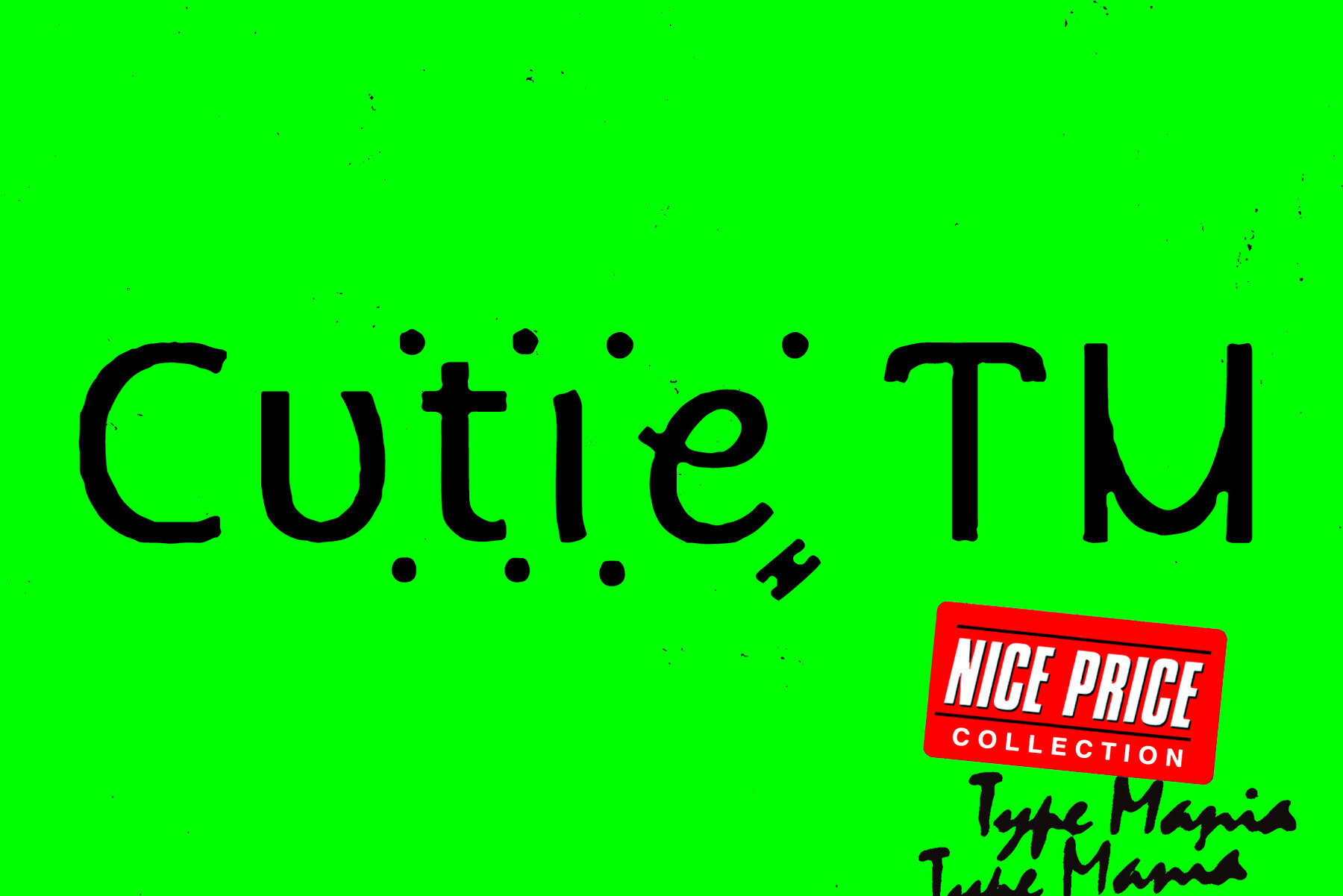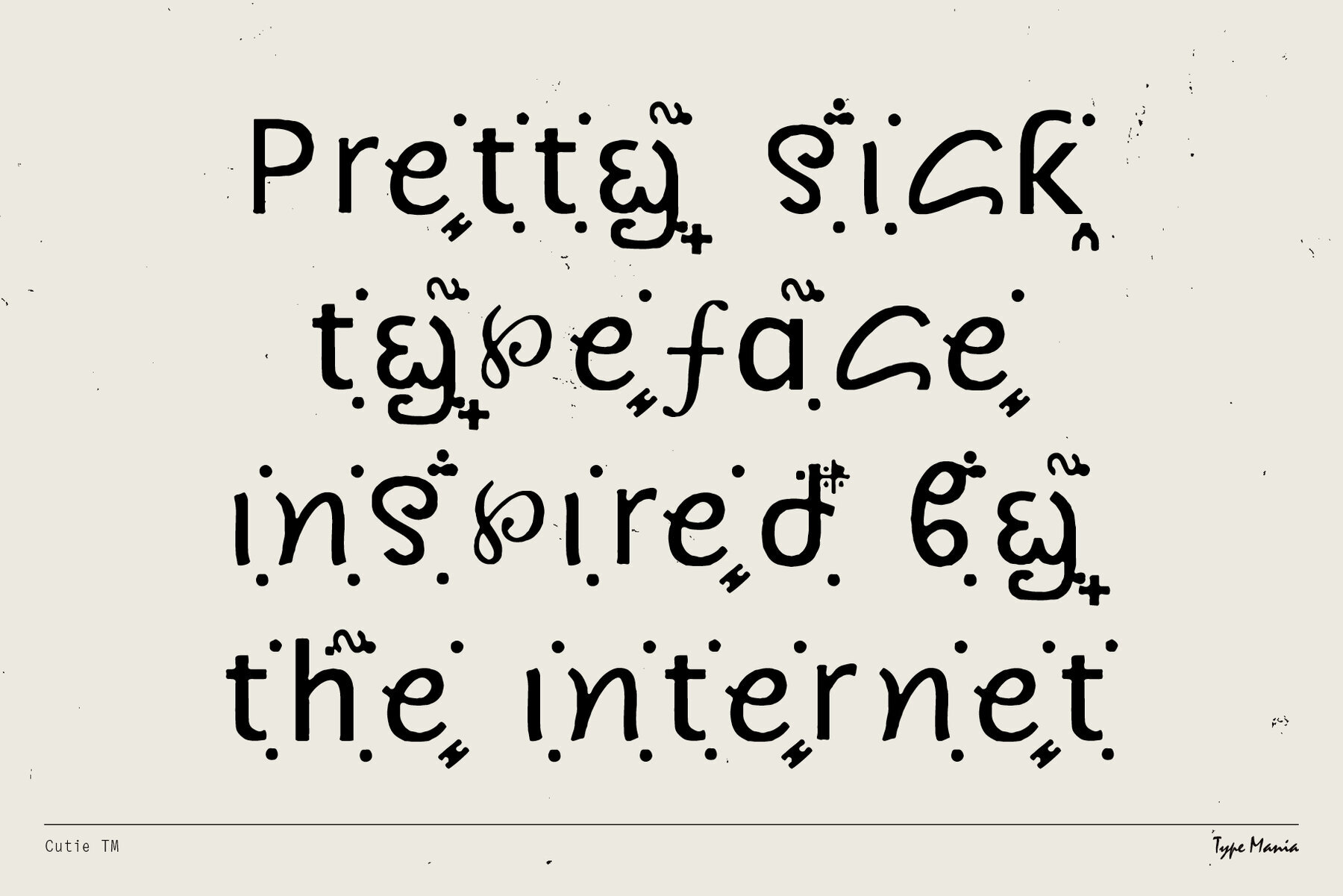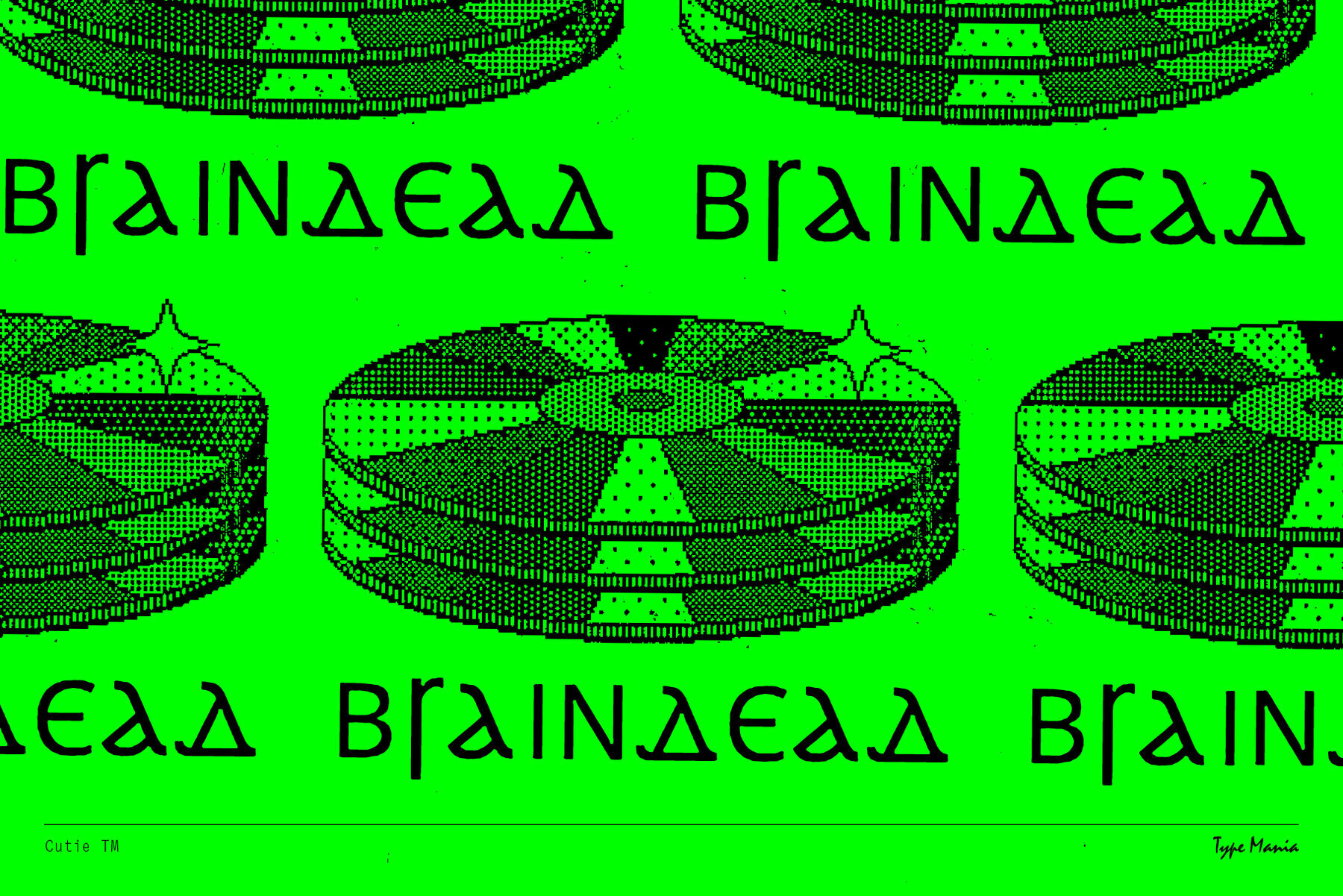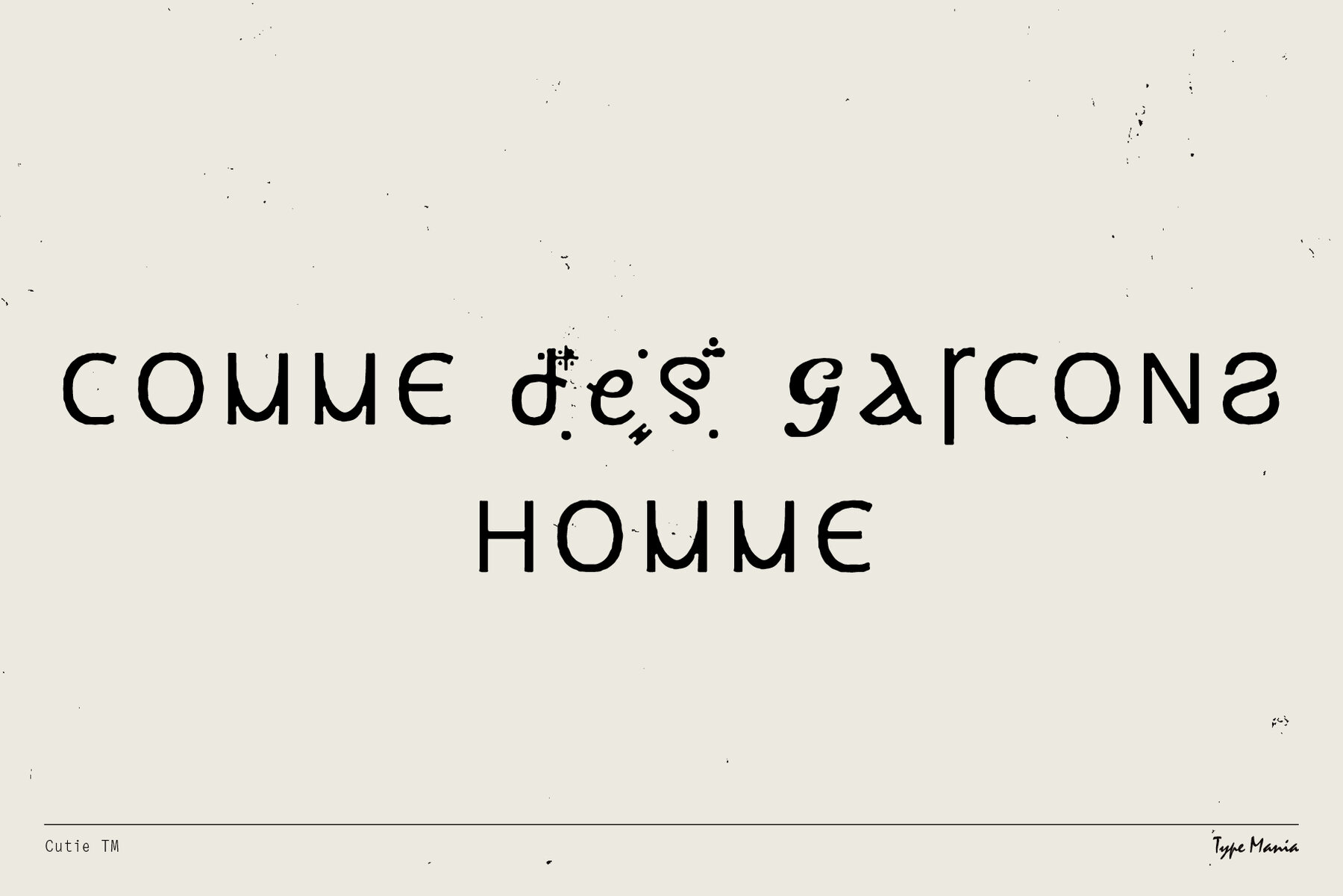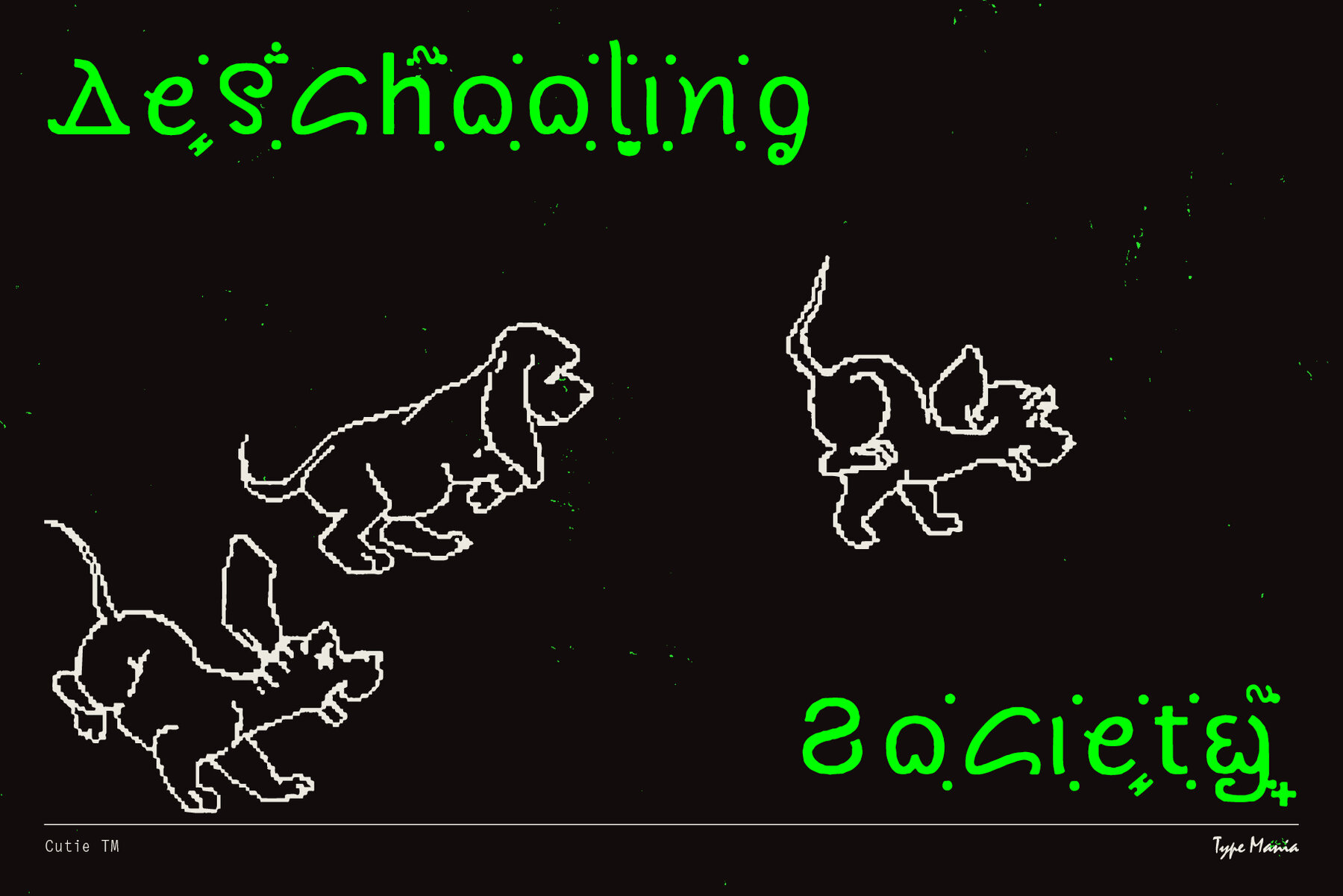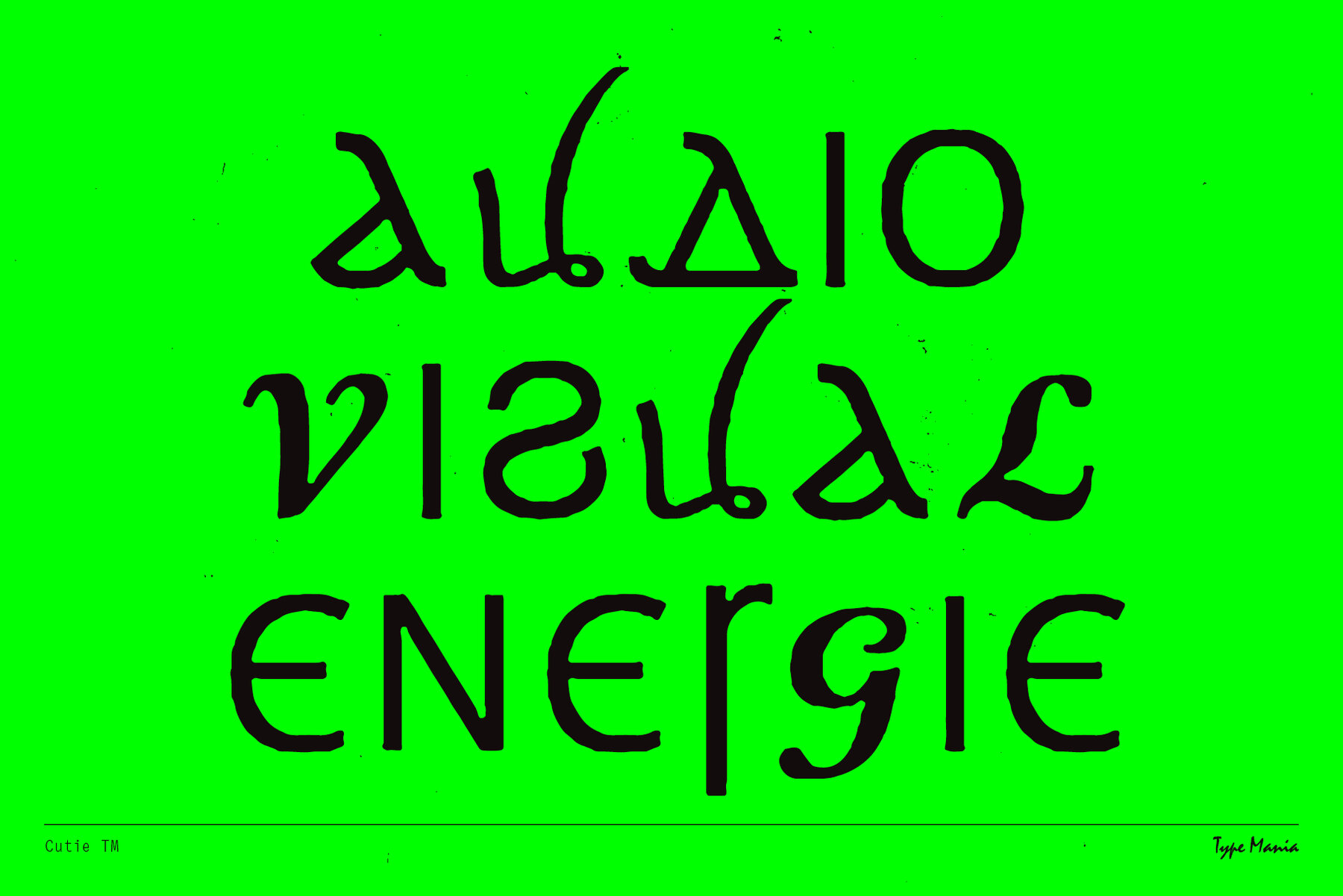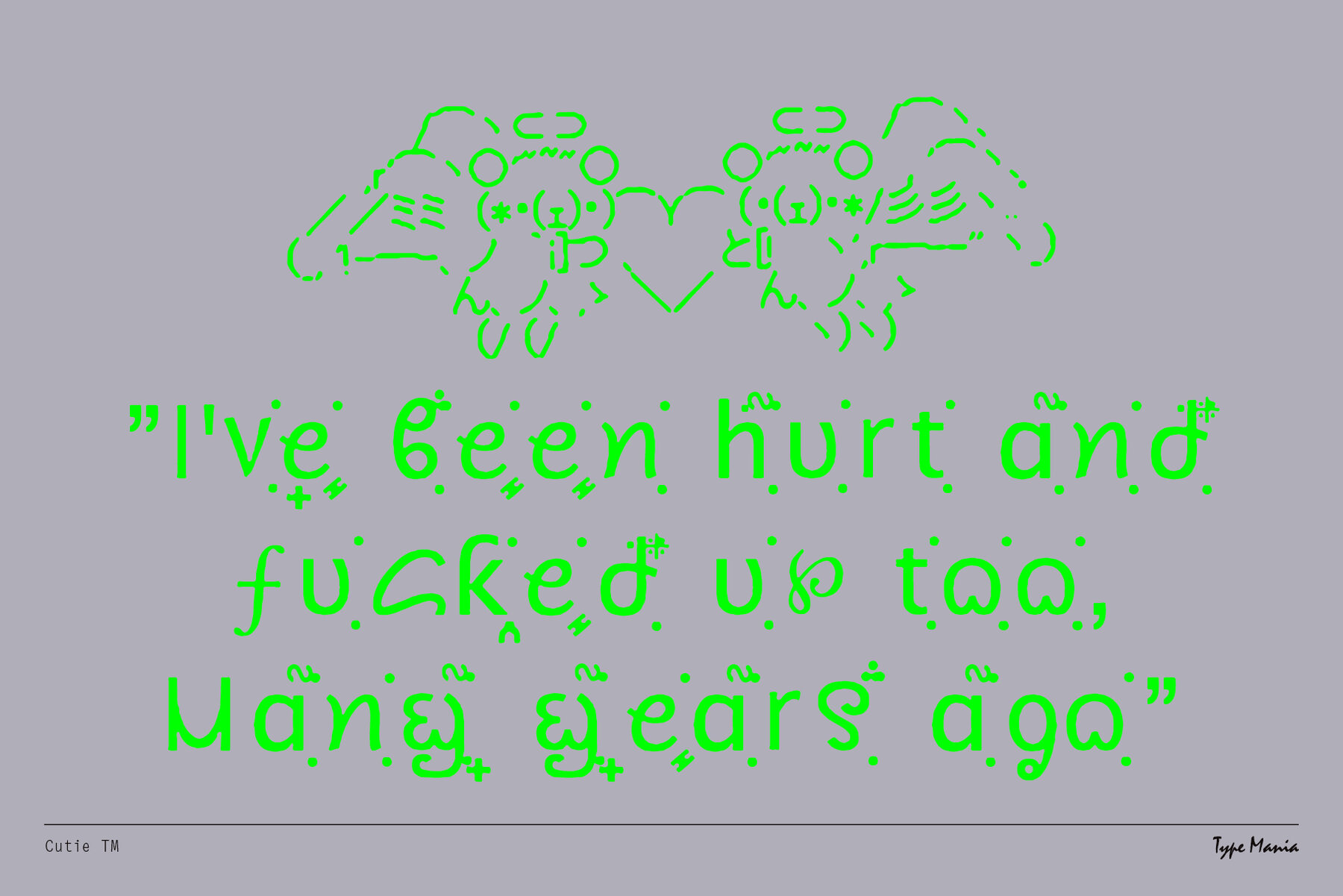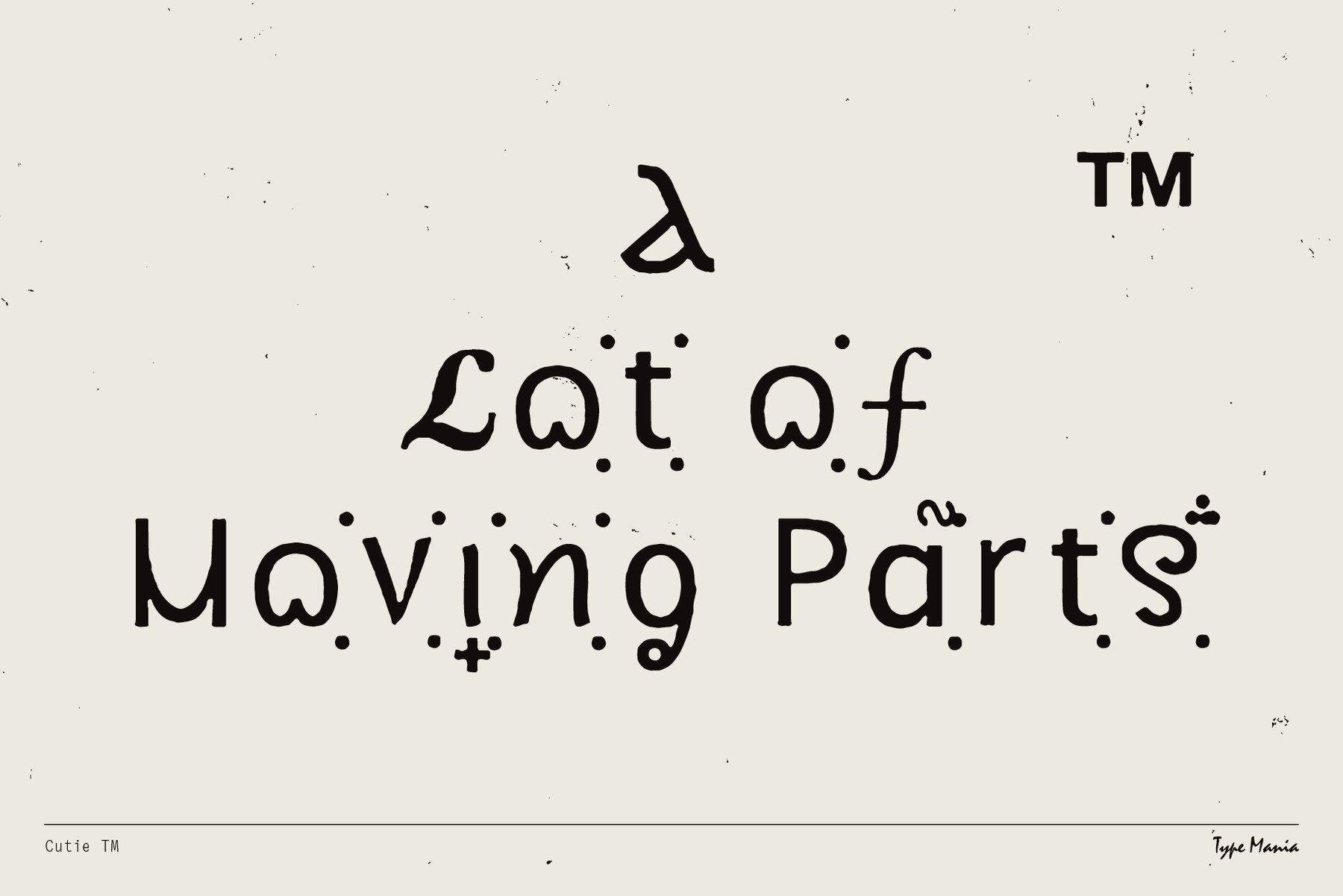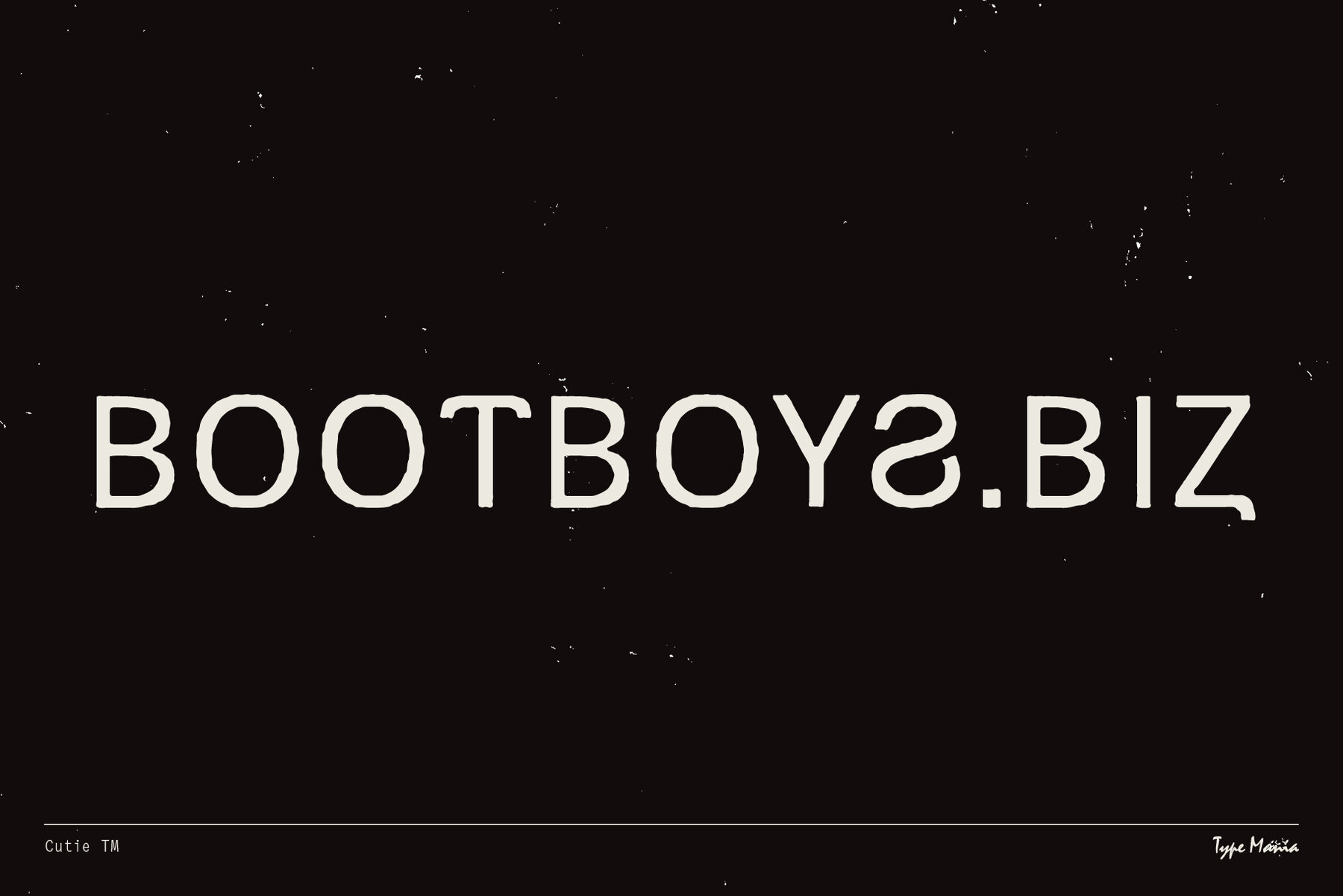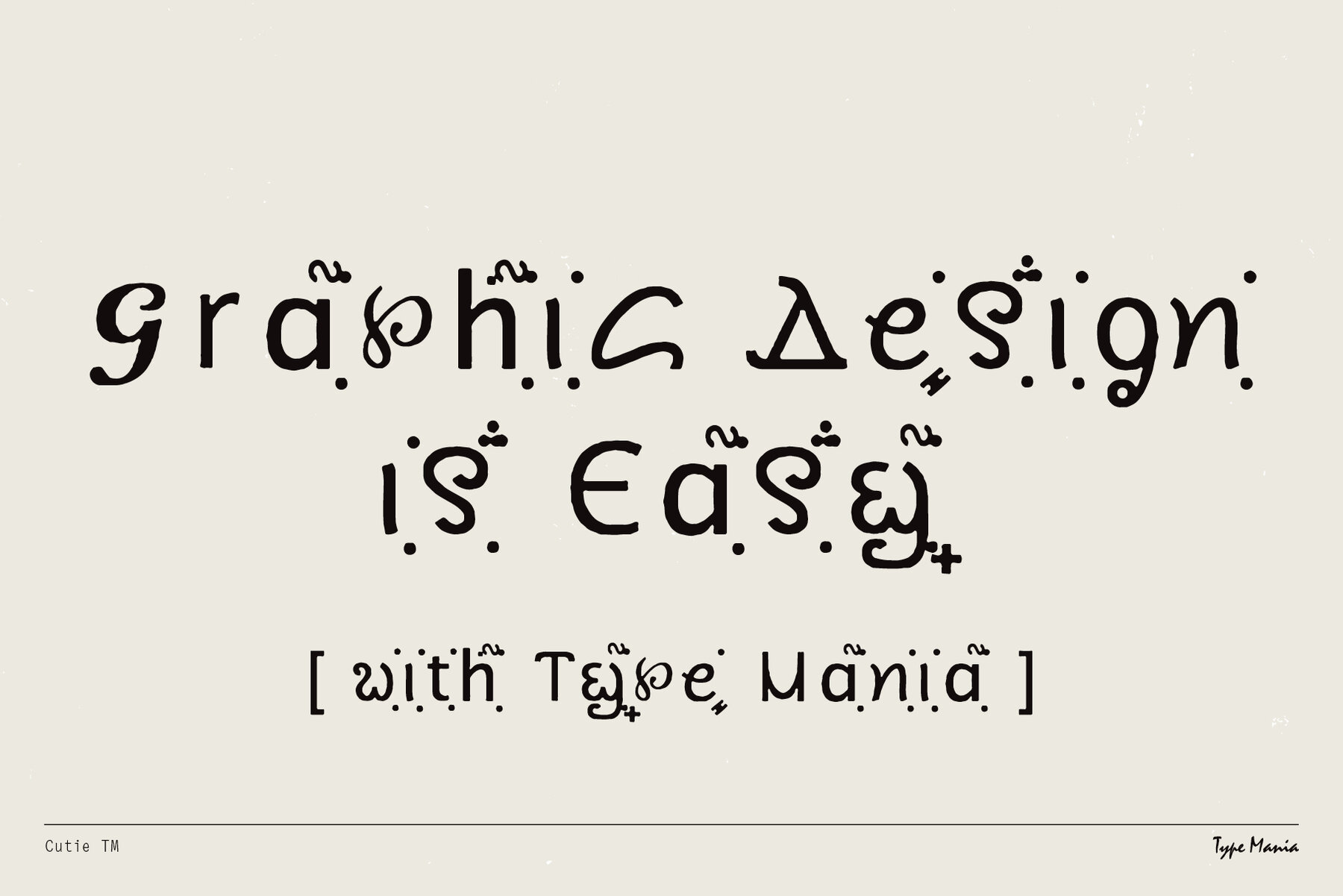
Cutie TM Font
Cutie TM Regular
Designed with a delightful whimsy, Cutie TM is a squiggly font that draws inspiration from the vibrant world of the internet. It forms a part of Type Mania's Nice Price collection, ensuring affordability without compromising on style. Embrace the simplicity of graphic design with the creative resources from Type Mania.Cutie TM: Playful and Accessible Squiggly Font